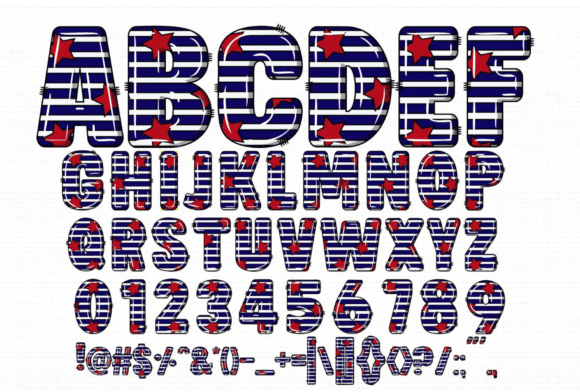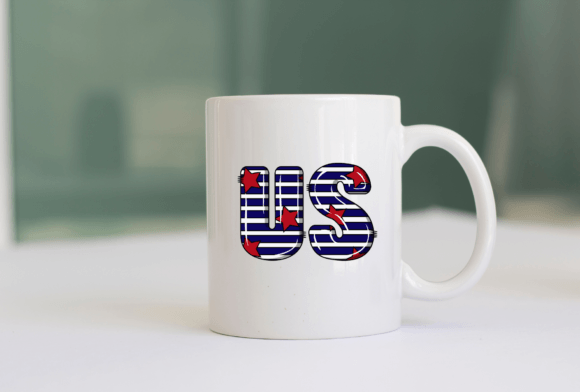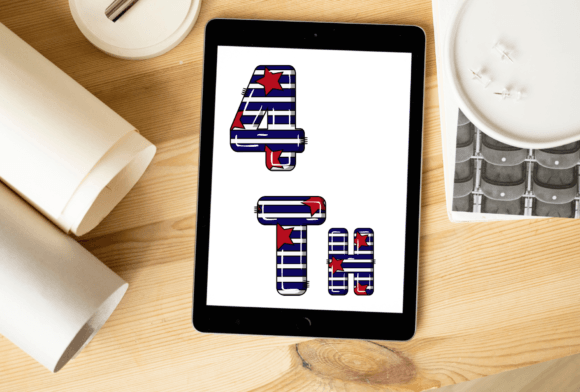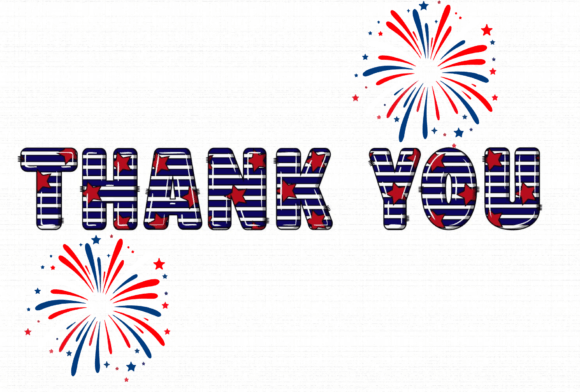
Designing for Freedom: The Independence Day Font
As I sat in my home office, surrounded by scraps of paper, half-finished designs, and a hint of caffeine, I stumbled upon the perfect combination of colors – red, white, and blue. The stars and stripes swirled together, and I knew I had to bring this patriotic spirit to life. With the Independence Day Font, designers can now create stunning visuals that evoke the feeling of freedom and unity.
This font is more than just a collection of letters; it’s a celebration of the values our nation represents. It’s a reminder of the bravery and perseverance of our ancestors, who fought for the rights and privileges we enjoy today. The Independence Day Font is a valuable tool for designers, allowing them to add a touch of patriotism to their projects. With its unique design and compatibility with various cutting machines and design programs, this font is a must-have for anyone looking to create memorable and meaningful designs.
Independence Day Font Key Features
- Unique Characteristics: The font features bold, patriotic graphics and icons, including stars, stripes, and other American flag elements, adding a unique touch to designs.
Independence Day Font Review
The Independence Day Font is a unique and eye-catching typeface that’s perfect for adding a patriotic touch to your designs. ✨ I love how it’s designed to resemble fireworks and other celebratory elements, making it ideal for 4th of July-themed projects or any other design that needs a bold, energetic vibe. ✨ The font’s bold lines and vibrant colors will surely grab attention and make your message stand out.
- Unique and eye-catching design
- Perfect for 4th of July-themed projects or patriotic designs
- Bold lines and vibrant colors make it stand out
- May be too loud or overwhelming for more subdued designs
- Not ideal for text-heavy projects due to its bold, playful nature
- Some characters may not be as detailed or nuanced as others
Overall, the Independence Day Font is a fun and festive addition to any design. While it may not be suitable for every project, it’s perfect for those that need a bold, attention-grabbing font. With a little creativity, you can use it to create some truly memorable designs.
The Independence Day font is perfect for patriotic designs, such as:
- Independence Day celebrations
- 4th of July decorations
- USA-themed designs
For the most effective use of the Independence Day font, follow these tips:
- Use it in bold